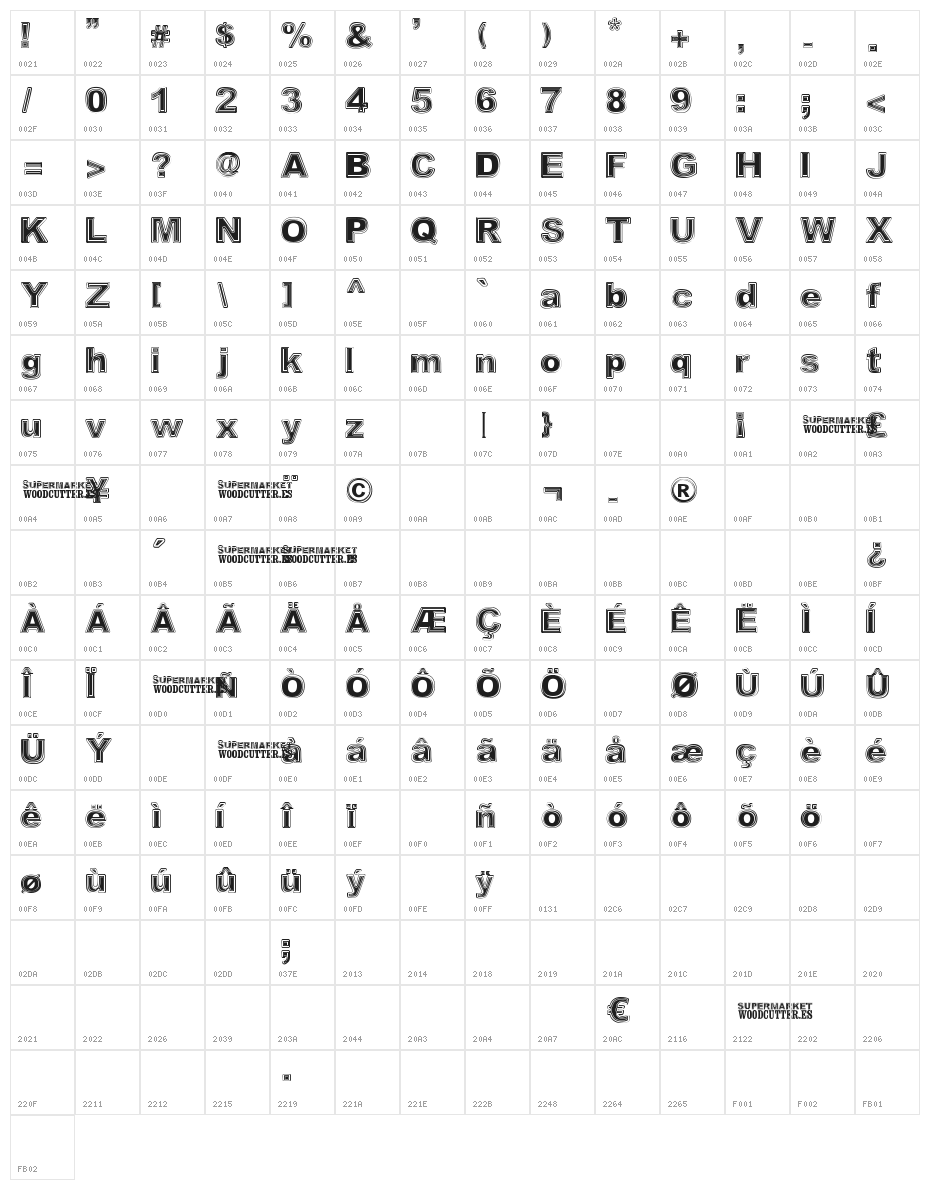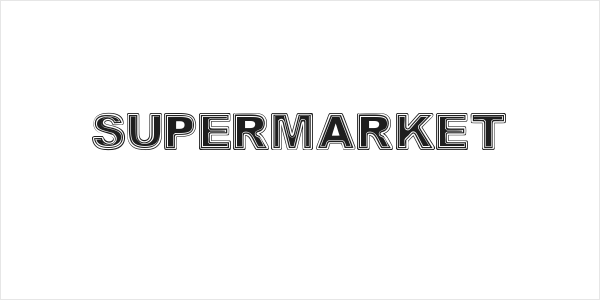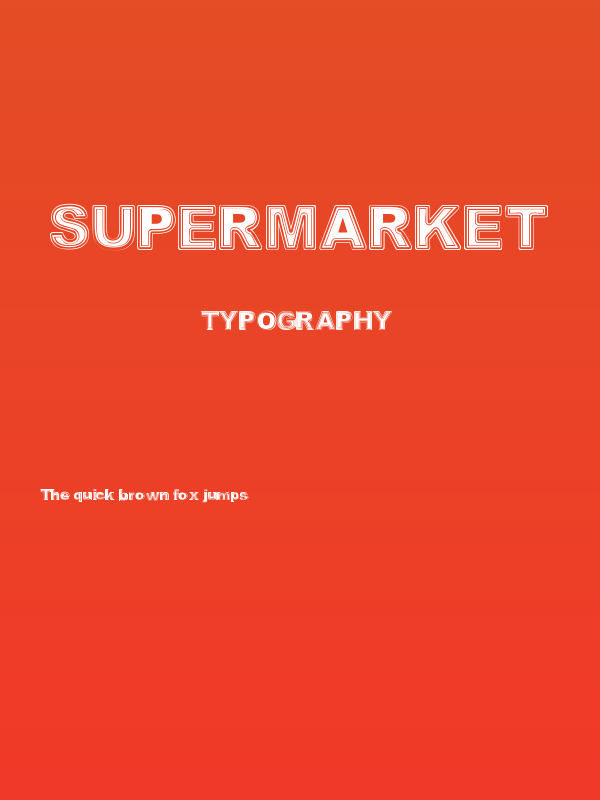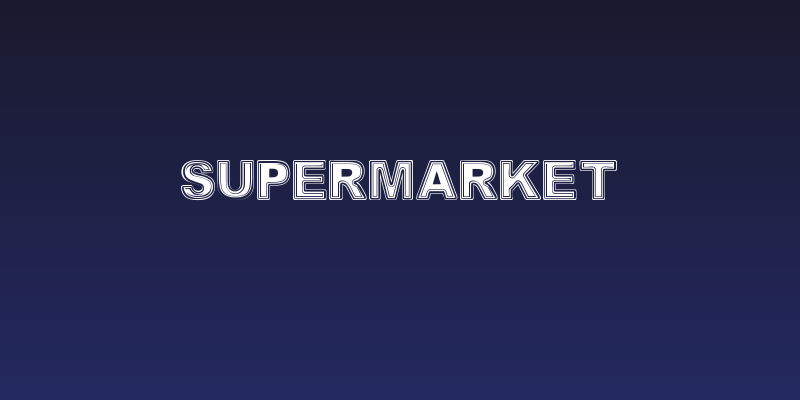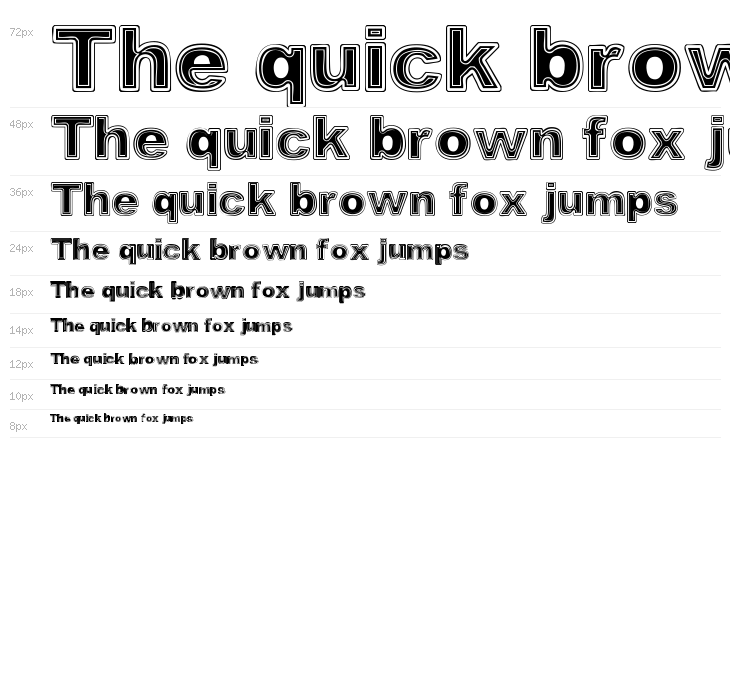
SUPERMARKET Font
SUPERMARKET Description
This font features a bold, outlined style with a modern and playful aesthetic. The characters are uppercase and lowercase letters, numbers, and a variety of special symbols. Each character is defined by a thick outer line that creates a striking visual impact, making it highly suitable for attention-grabbing designs. The font maintains a consistent weight across all characters, ensuring uniformity and balance. Its boldness and outline design make it ideal for projects that require a strong visual presence.